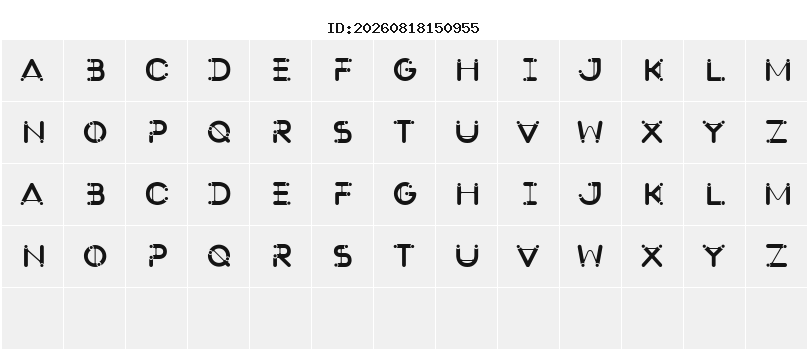
SlingShot Preview
• Font Name: SlingShot
• Full Font Name: SlingShot Regular
About SlingShot.ttf
SlingShot.ttf is a modern, elegant sans-serif font designed for ultimate readability and visual harmony. Perfect for branding, headlines, web design, and print materials.